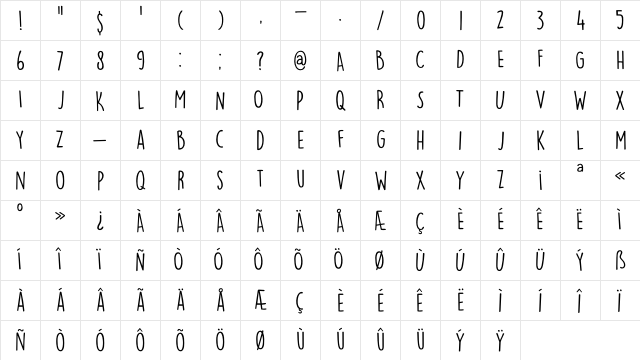
DK Lemon Yellow Sun Regular
| Foundry | David Kerkhoff |
| Designer | David Kerkhoff |
Design Context for DK Lemon Yellow Sun Typeface
DK Lemon Yellow Sun takes a measured approach to typography — its balanced proportions and neutral character make it a reliable workhorse for both digital and print work.